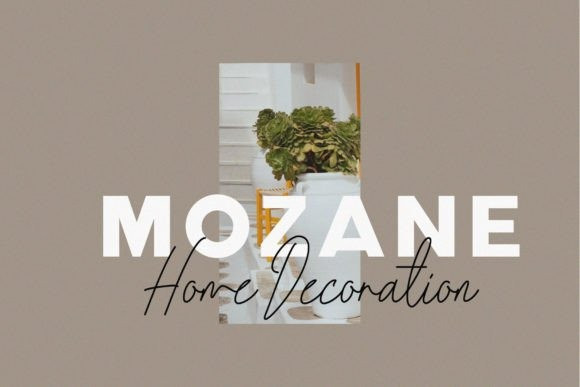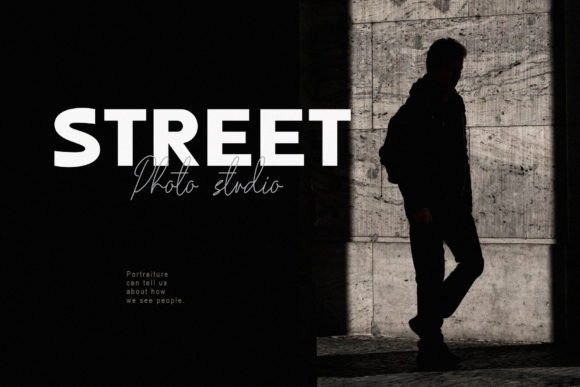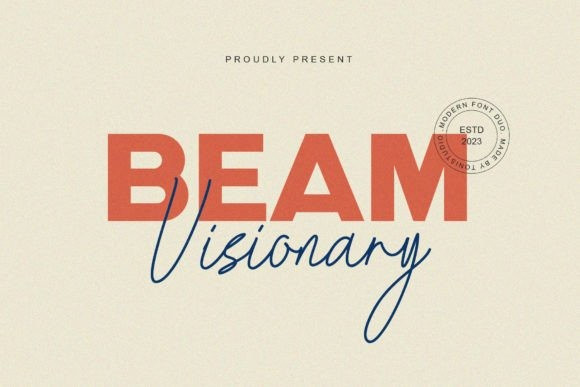
Beam Visionary Font
Beam Visionary Font, a classy, ​​modern sans serif and signature that is comfortable in fashion and high culture circles. This font stands alone as a header or editorial font.
BeamVisionary works best in display usage, it is an elegant, simple, high-contrast sans serif and signature